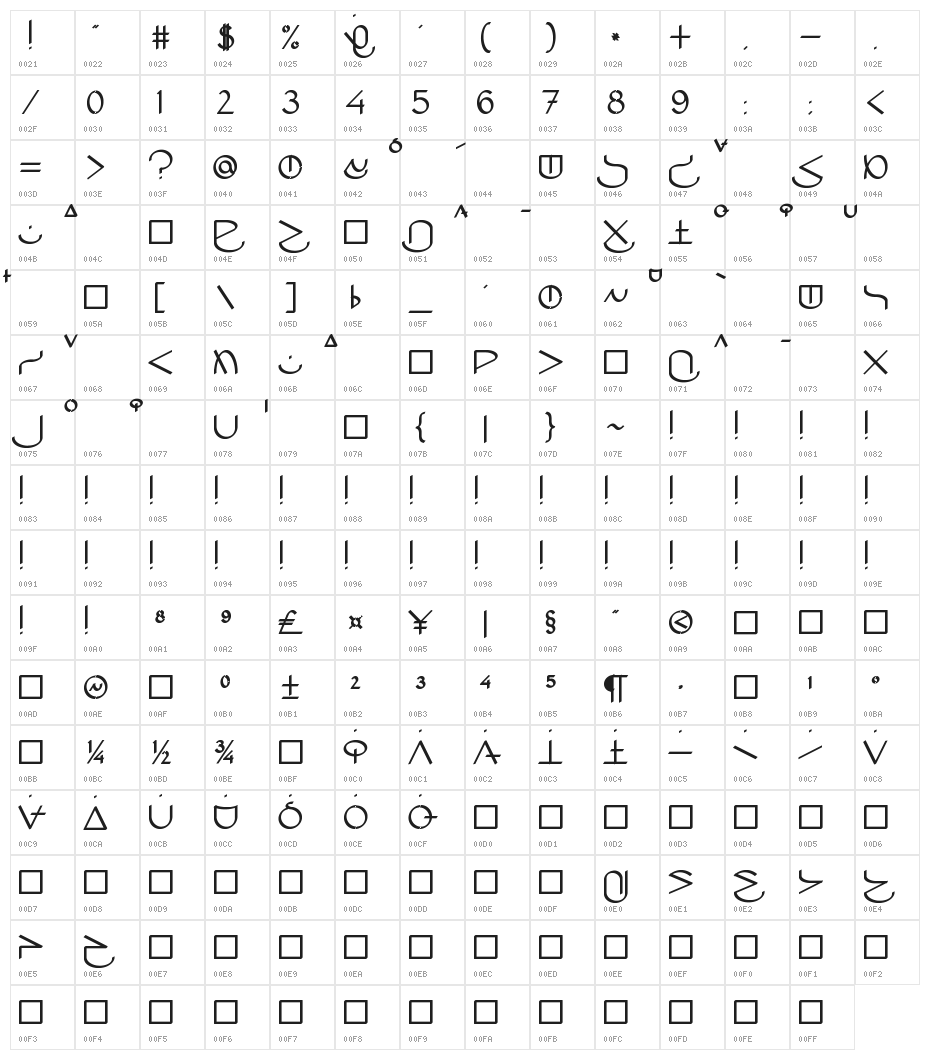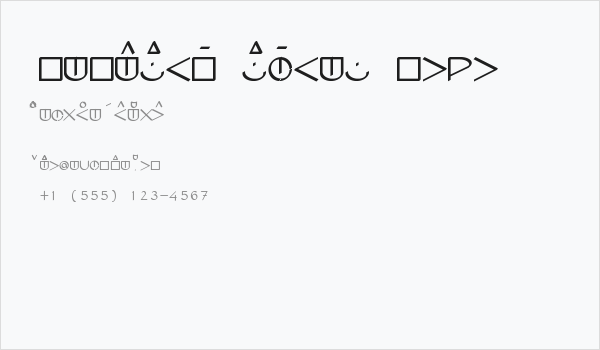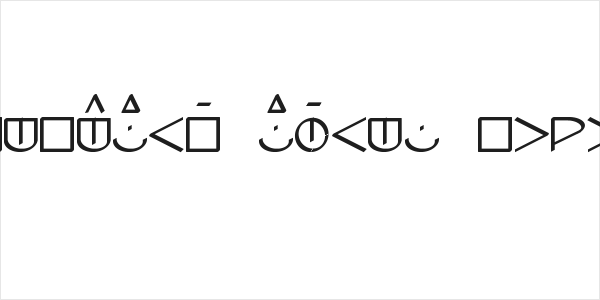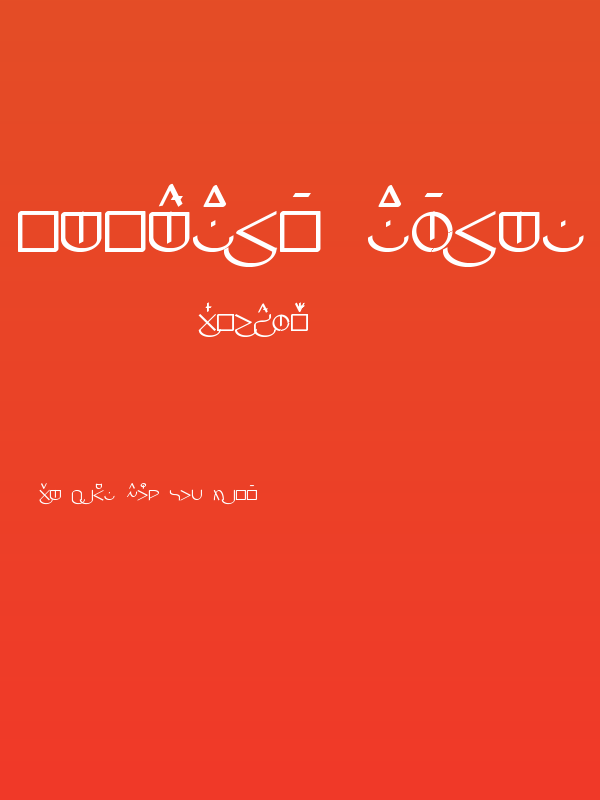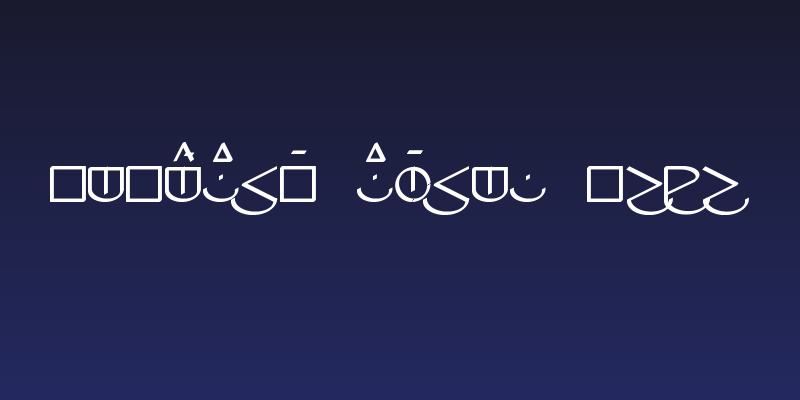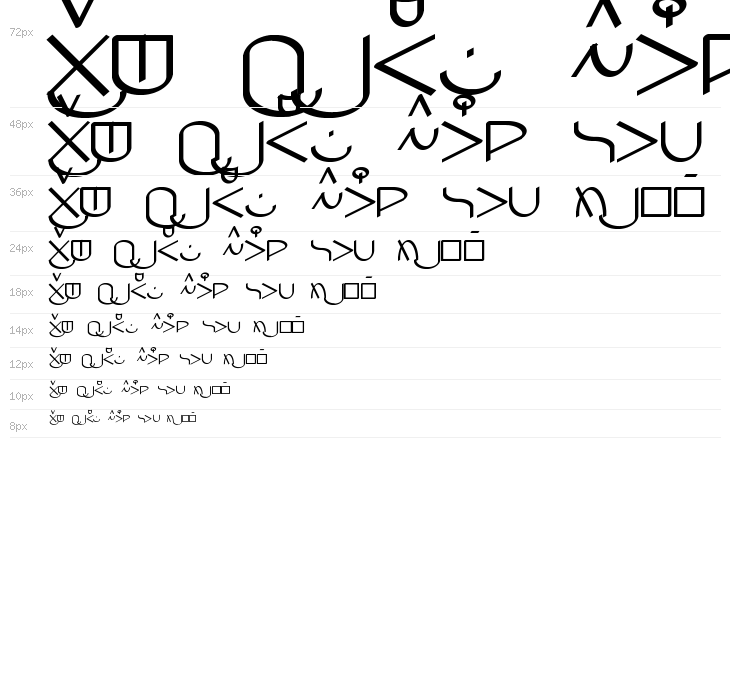
Peperklips Klassiek Mono Font
Peperklips Klassiek Mono Description
This font features a highly decorative and abstract design, incorporating geometric shapes and symbols that deviate from traditional letterforms. The characters are composed of circles, triangles, and lines, creating a unique and artistic appearance. The font lacks conventional readability, making it more suitable for artistic or thematic projects rather than standard text. Its distinct style is reminiscent of ancient scripts or symbolic languages, offering a mysterious and avant-garde aesthetic.
| Overall Style | Avant-garde, Artistic |
| Use Case | Logos, Artistic designs, Themed projects |
| Proposed Projects | Ideal for artistic projects, themed designs, or creative branding that requires a unique and symbolic typeface. |